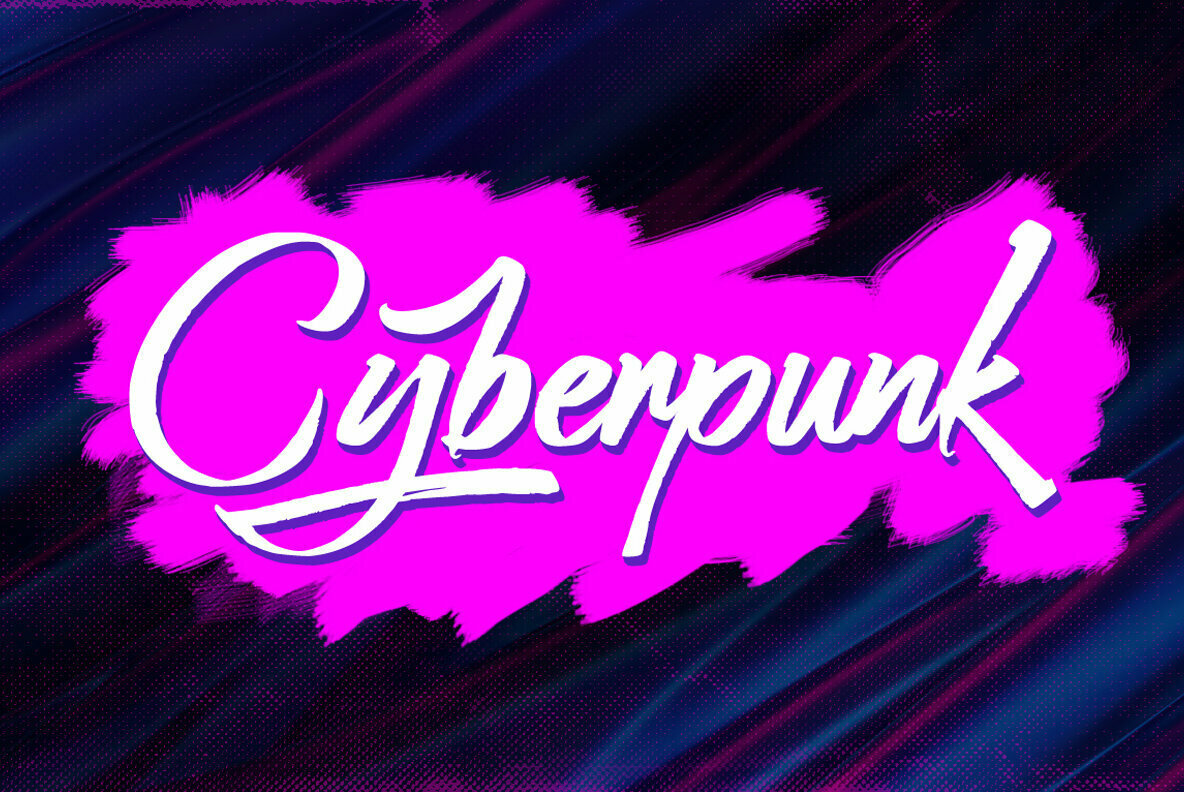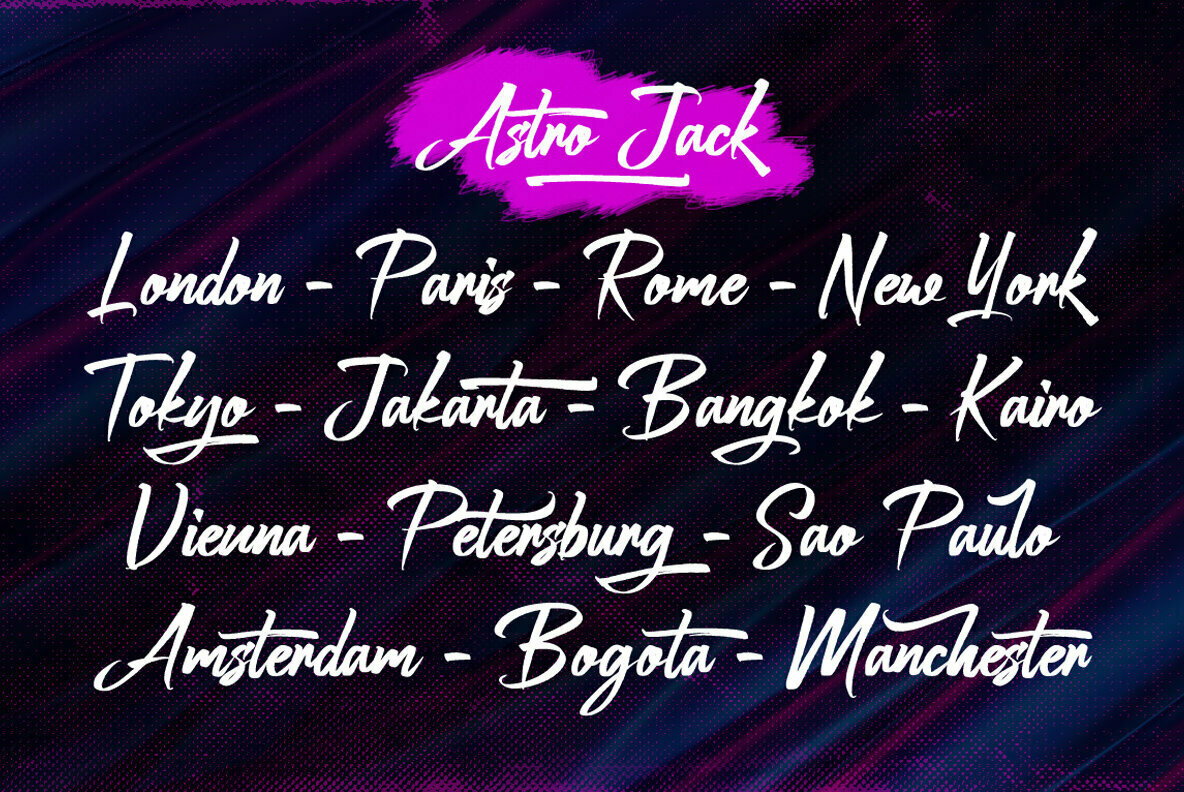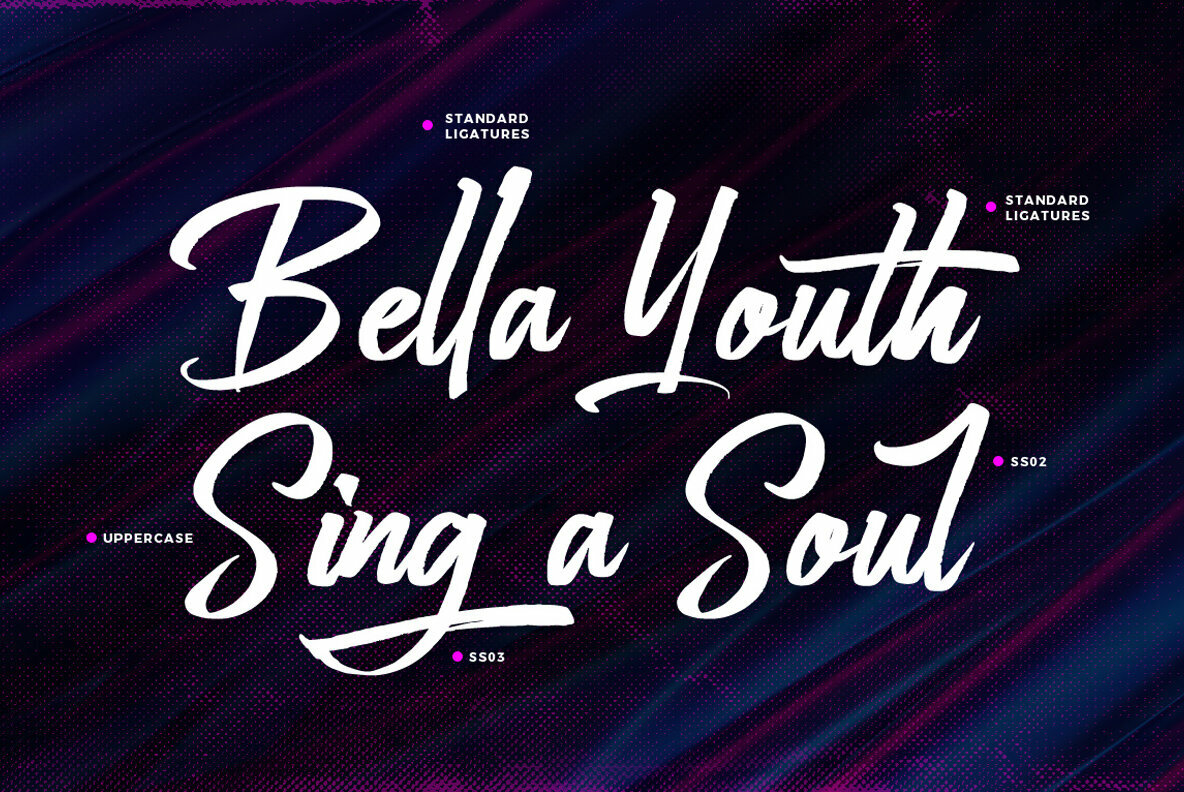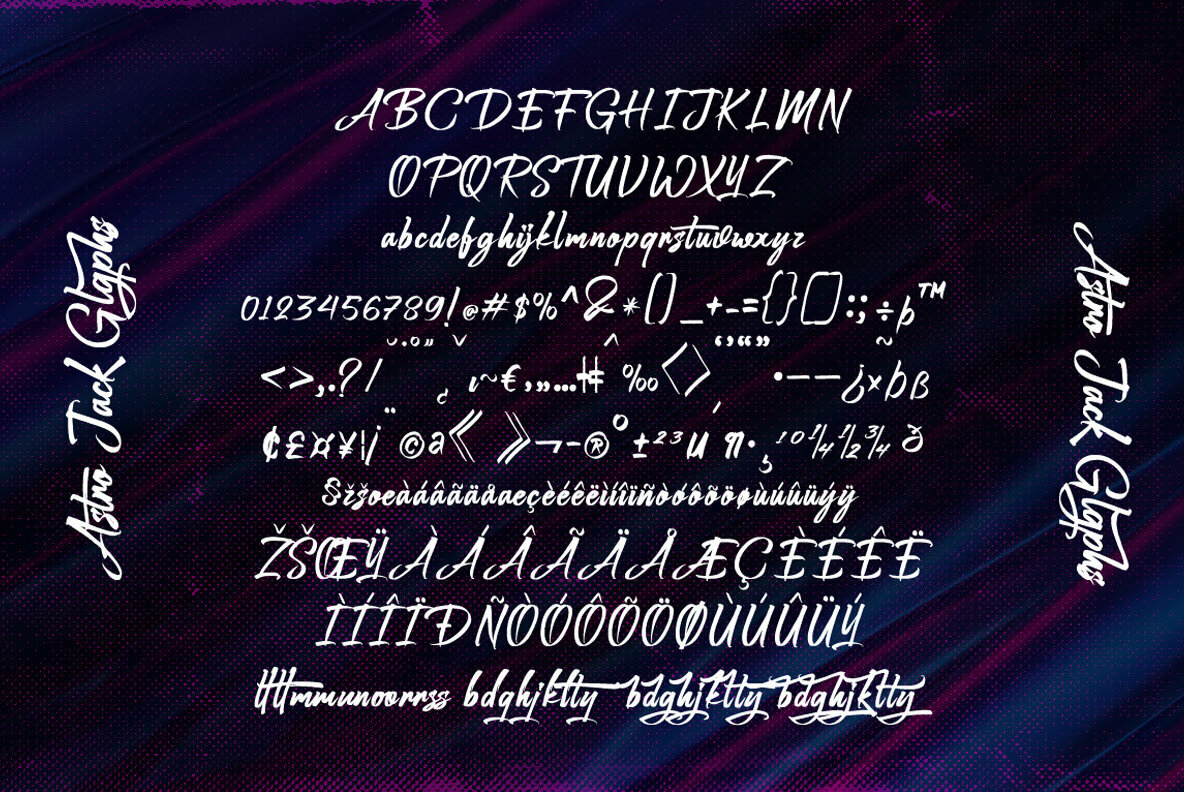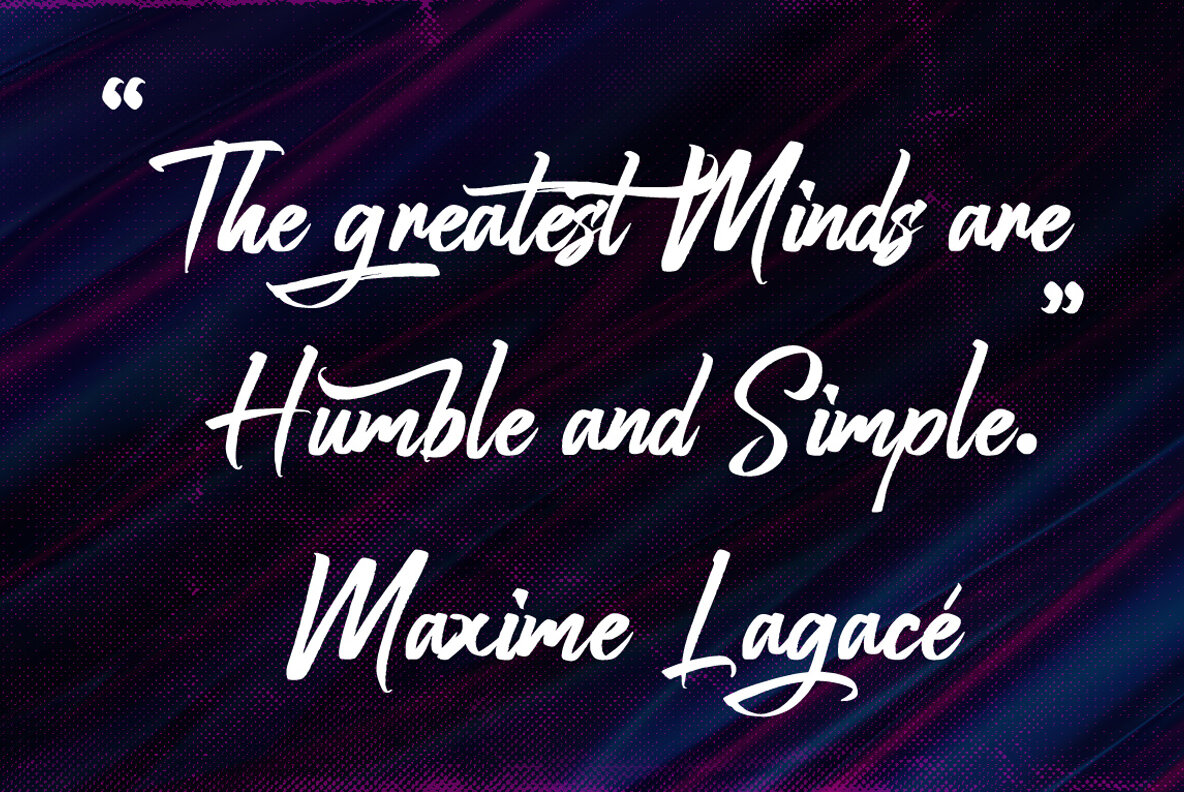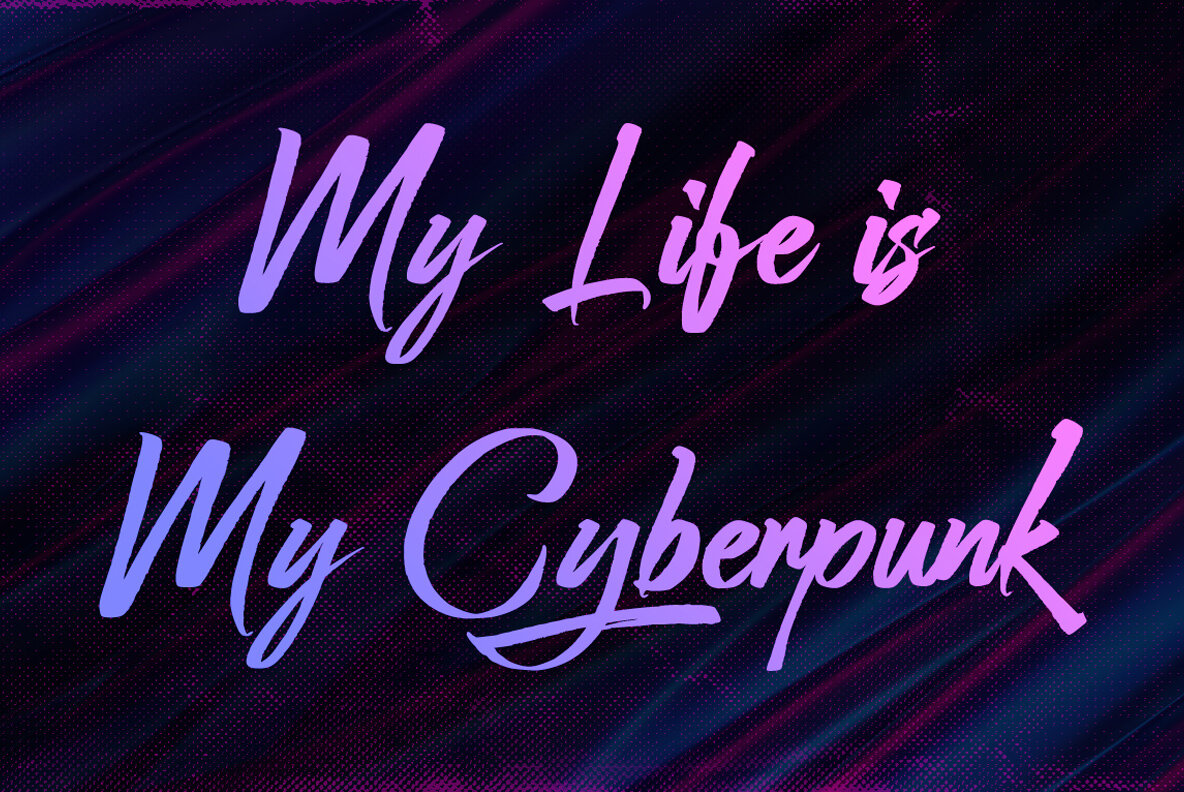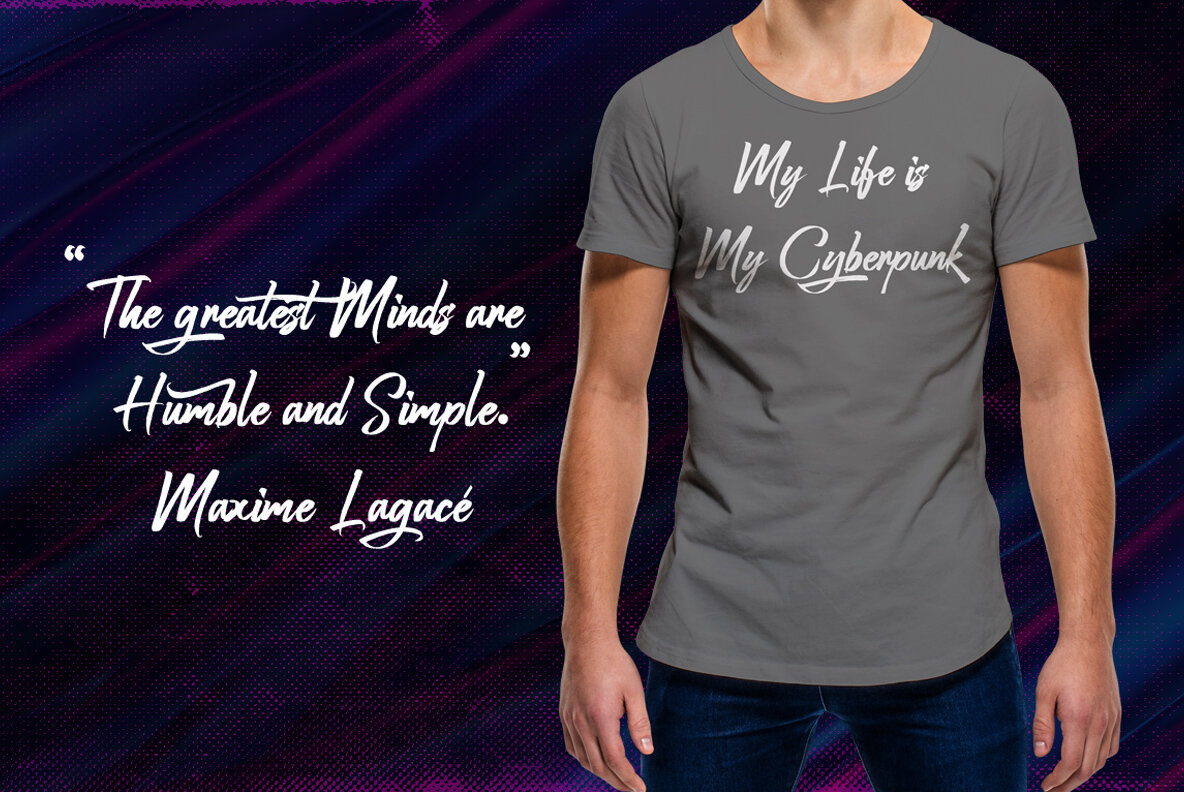
Astro Jack Font
Astro Jack emerges as a vibrant script font characterized by its handlettering brush style. Providing an enriching touch to any creative endeavor, it integrates seamlessly into a variety of projects. From designing wedding invitations to crafting unique logos and creating standout t-shirts, this font elevates visual communication with its distinctive charm.Astro Jack: Script Font With Handlettering Flair